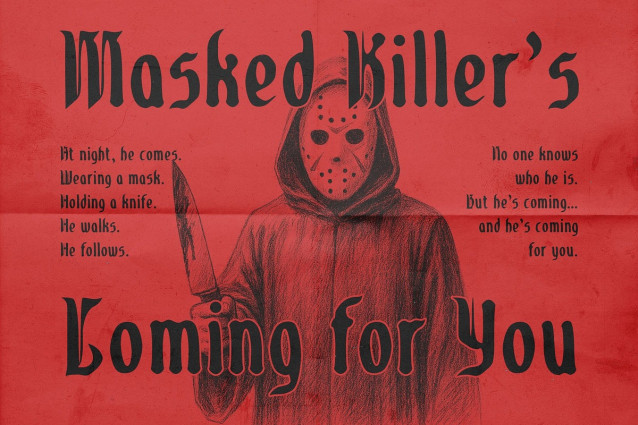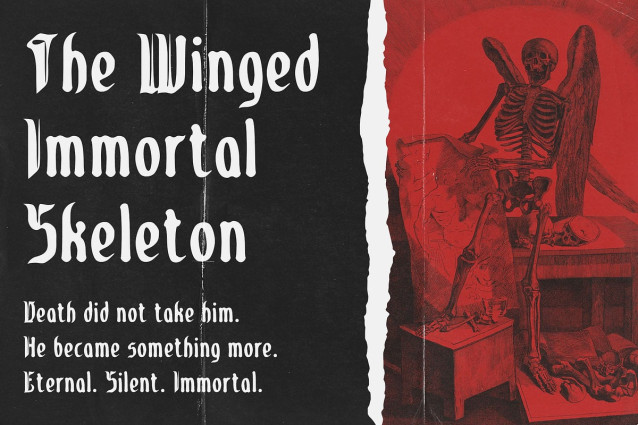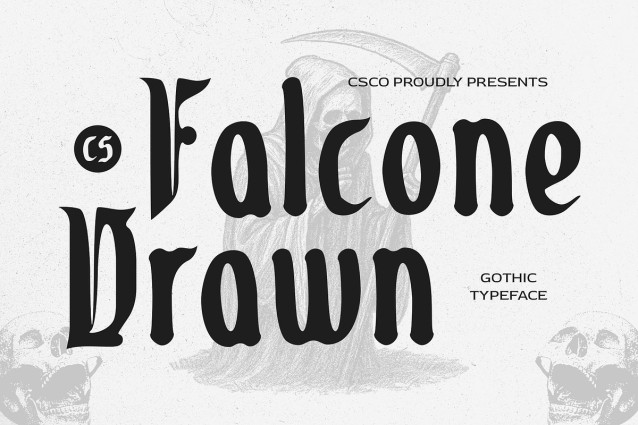
CS Falcone Drawn Font
CS Falcone Drawn is a striking display font that merges the timeless elegance of Blackletter’s gothic forms with a fresh, contemporary twist. Its bold letterforms retain classic sharpness and drama while being softened by clean lines and modern proportions.
Handcrafted Artistic Texture for Added Warmth The distinctive drawn effect adds a handcrafted, artistic texture that brings warmth and personality to the font’s strong structure. This detail enhances its expressiveness, making the font feel both dynamic and approachable.
Powerful and Distinctive Visual Impact With its bold, dramatic design, This display modern font commands attention and delivers a strong visual statement. It’s perfect for projects that demand a typeface with attitude and unique character. This modern font delivers a commanding visual presence, making it perfect for projects that require boldness and character. Its combination of traditional gothic influence with a contemporary handcrafted touch ensures versatility across a range of creative applications.
Ideal for Edgy and Creative Designs This font excels in edgy branding, music-related design, art posters, and experimental fashion visuals. This gothic modern font provides a perfect balance of tradition and innovation, making it a versatile choice for creative professionals looking to make a bold impression.